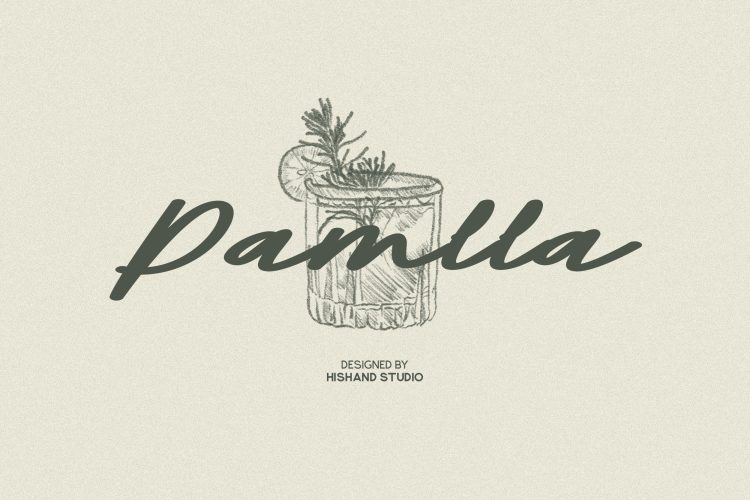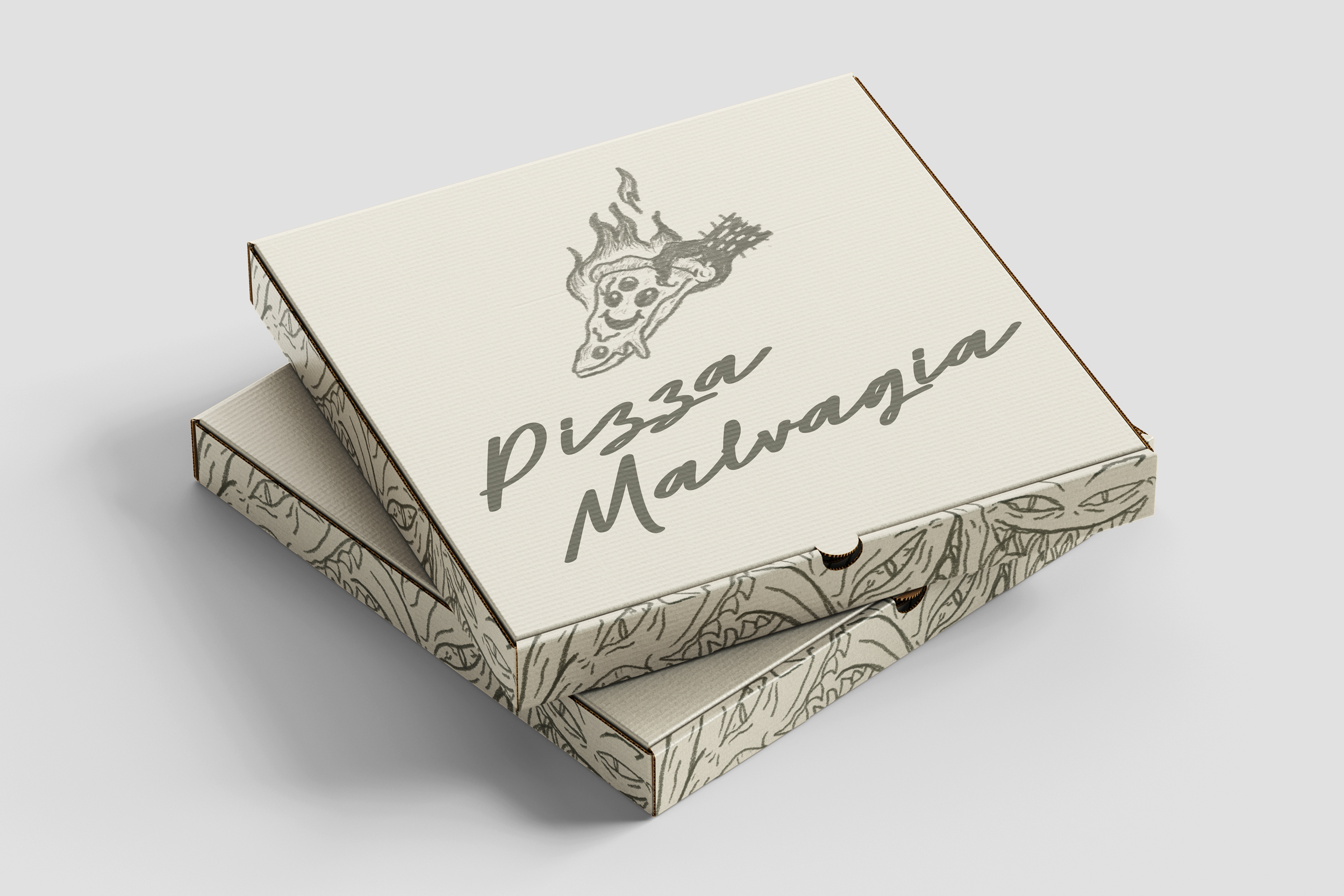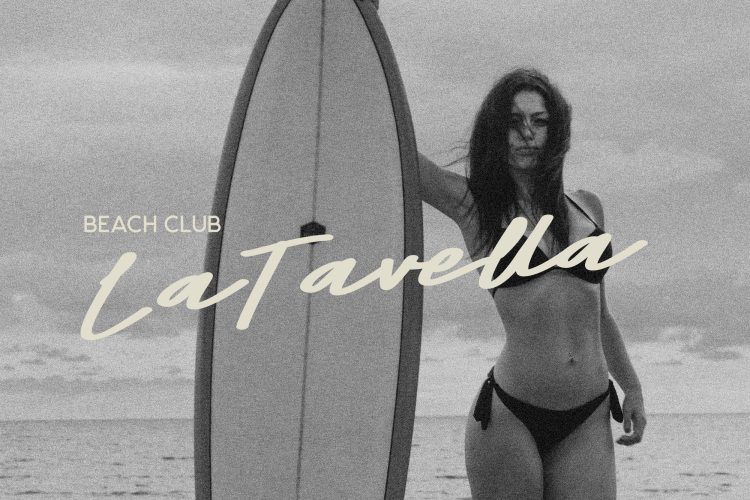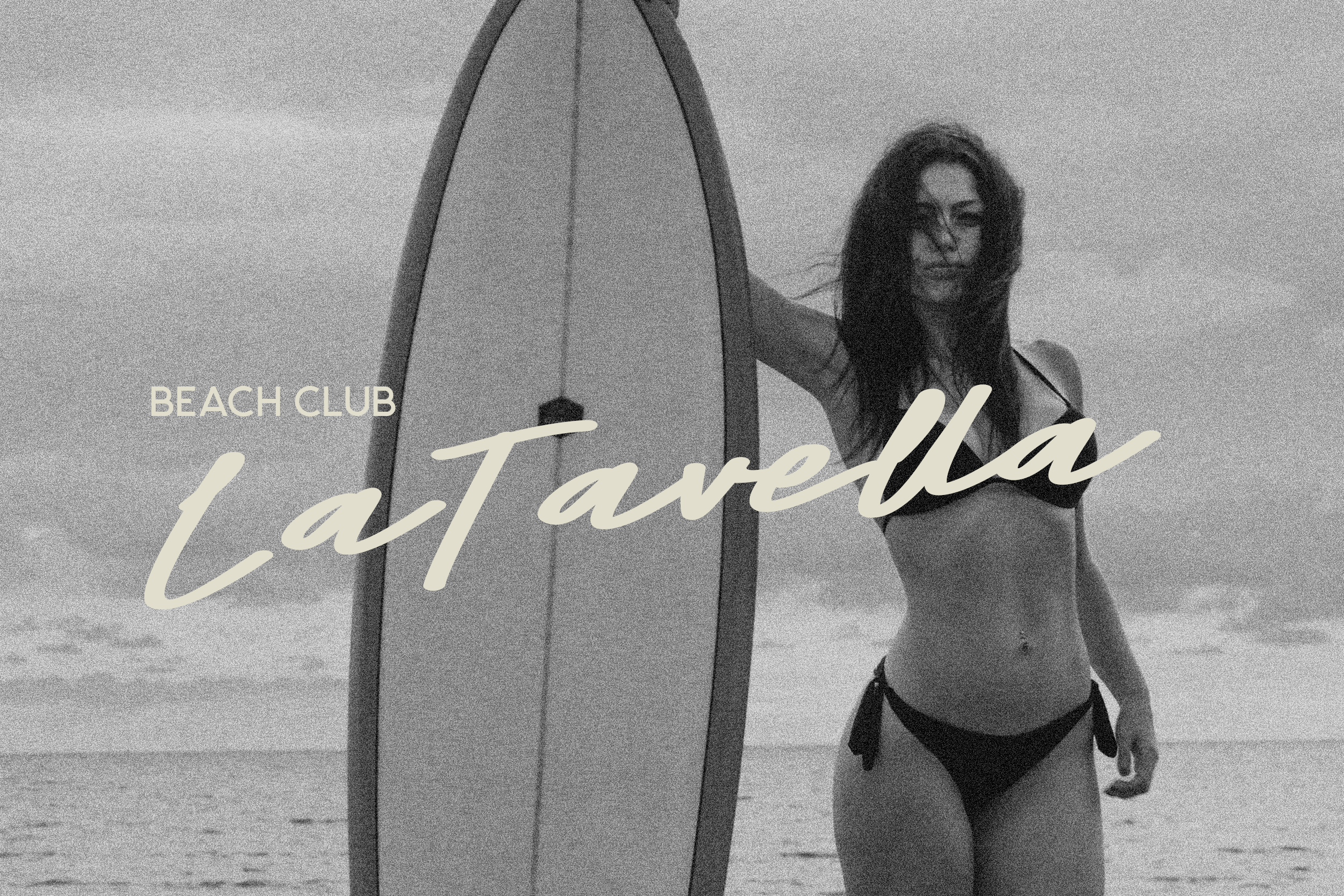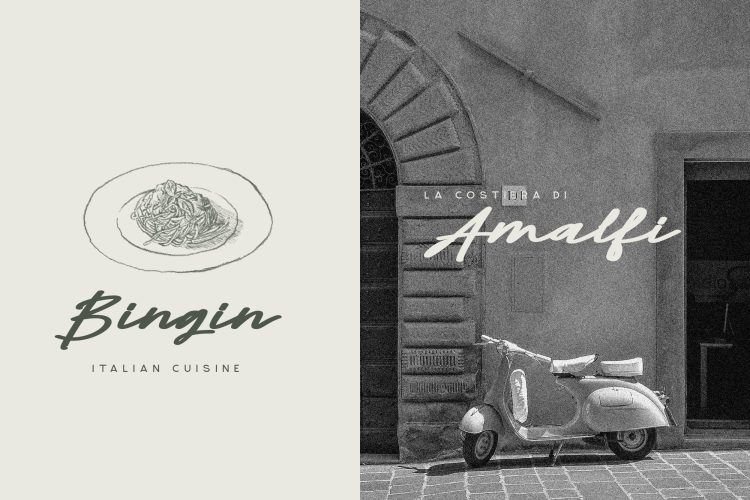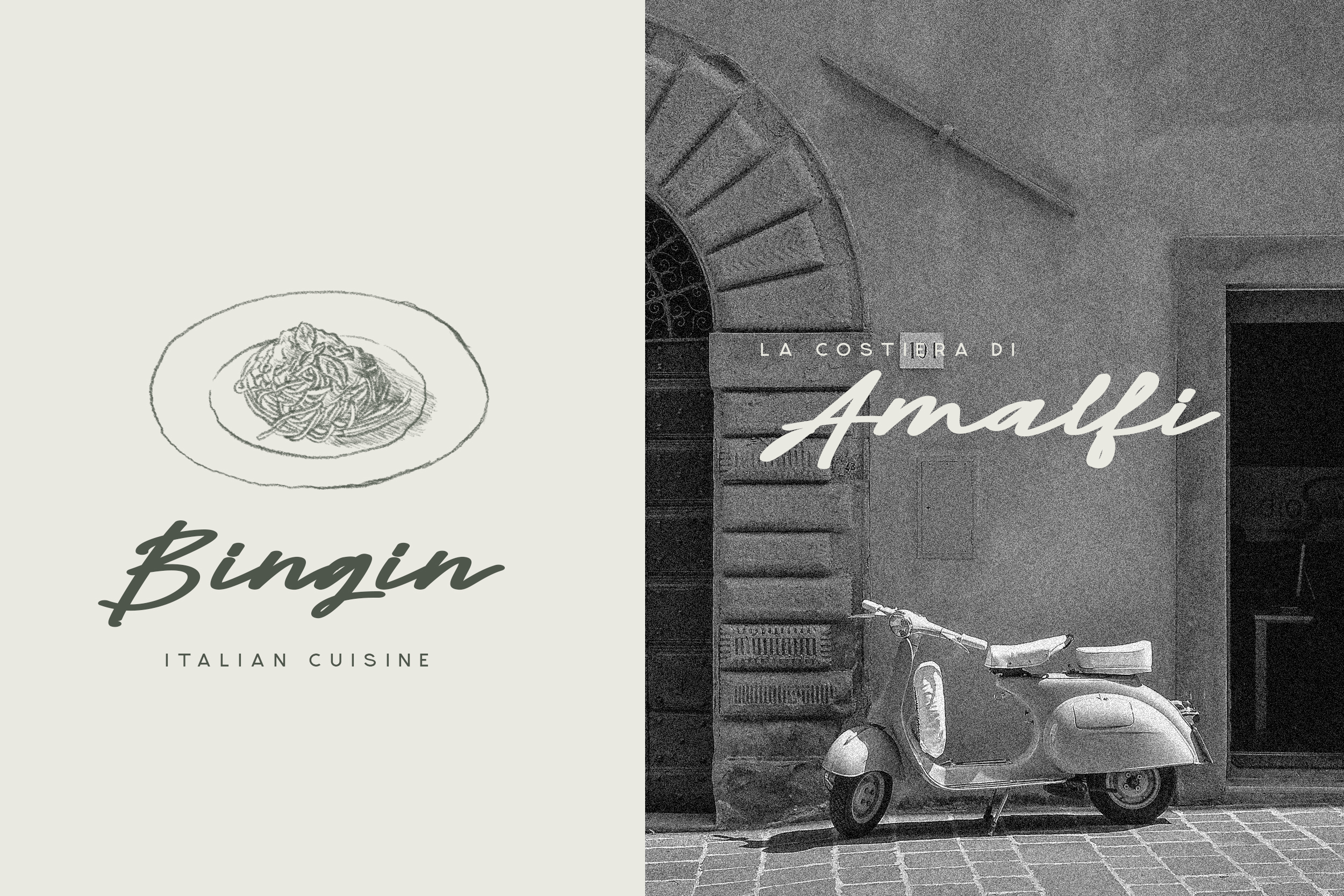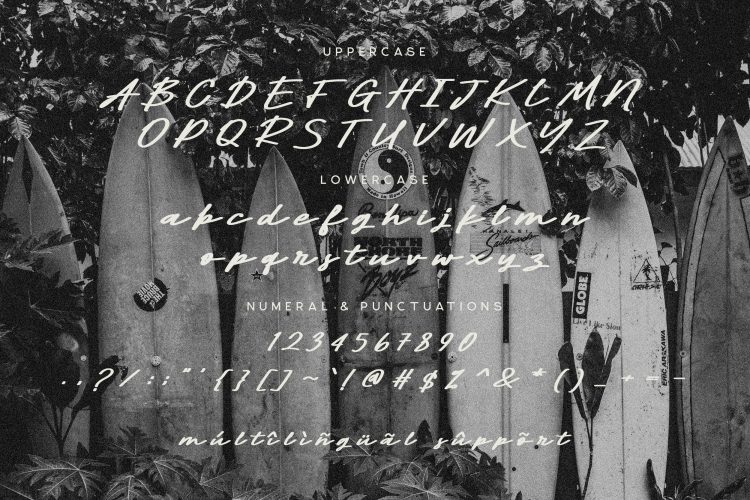
Pamlla Font
Pamlla is a graceful and elegant script font that blends aesthetic charm with timeless sophistication. Designed with meticulous detail, Pamlla showcases flowing letterforms, delicate curves, and a smooth handwritten feel that adds a sense of refinement to any design project. It brings a handcrafted essence that feels authentic and polished, making it a perfect choice for designers who seek beauty without compromising on legibility.
The charm of Pamlla lies in its remarkable versatility. Whether you are creating branding for a boutique business, crafting elegant wedding invitations, designing premium product packaging, or developing content for a high-end lifestyle blog, this font adapts effortlessly. Its balanced strokes and thoughtful spacing ensure that every word remains clear and readable, even at smaller sizes, while maintaining a distinctive and stylish character.
Pamlla excels in both print and digital environments, making it suitable for logos, editorial design, signage, packaging, web design, and stylish social media graphics. Its refined style pairs beautifully with minimalist layouts and also complements more decorative or luxurious themes, giving creators full freedom in their artistic direction. From modern elegance to vintage-inspired aesthetics, Pamlla can enhance a wide range of creative projects with ease and beauty.
Beyond its visual appeal, Pamlla brings emotional warmth to any design. It conveys sophistication, creativity, and professionalism—qualities essential to building a strong and memorable visual identity. Whether you’re a designer, a small business owner, or a creative professional looking to stand out, Pamlla is the perfect script font to elevate your work with distinction.
Let your words flow with confidence, charm, and elegance. With Pamlla Aesthetic Script Font, every project gains a touch of classic beauty, timeless appeal, and visual harmony—making it an invaluable asset in your font library. Discover the lasting potential of Pamlla and let it inspire your next design journey.
Complete with
• uppercase
• lowercase
• ligatures
• alternates
• multilingual support